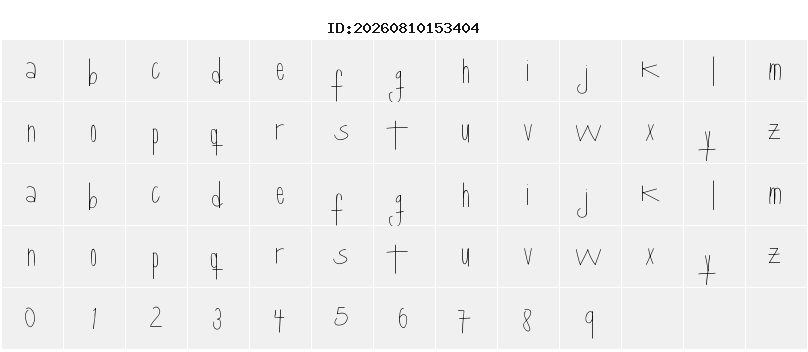
CWB00000000 Preview
• Font Name: CWB00000000
• Font ID: Queretaro
• Full Font Name: Queretaro
• Version: CWB00000000
• PostScript Name: Queretaro
About CWB00000000.ttf
CWB00000000.ttf is a modern, elegant sans-serif font designed for ultimate readability and visual harmony. Perfect for branding, headlines, web design, and print materials.